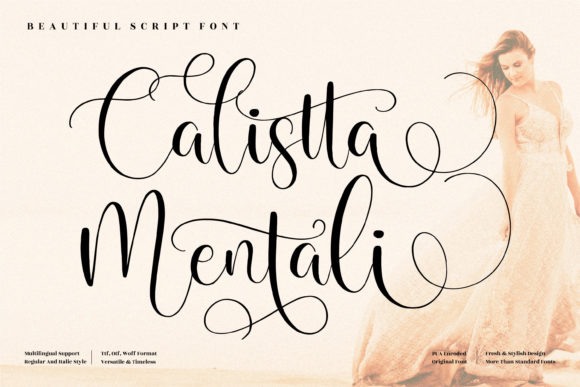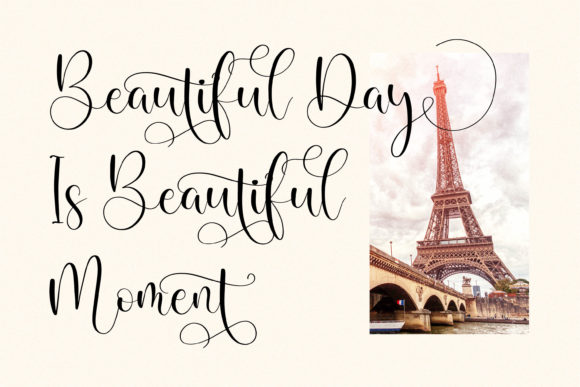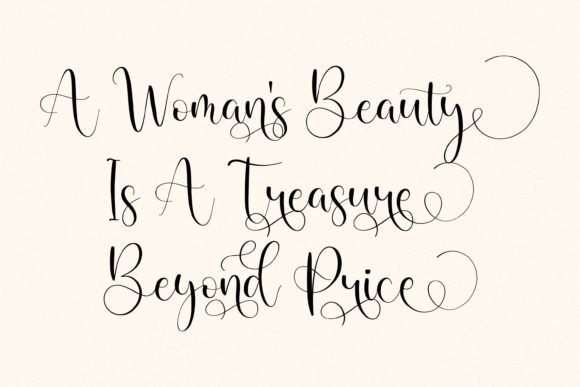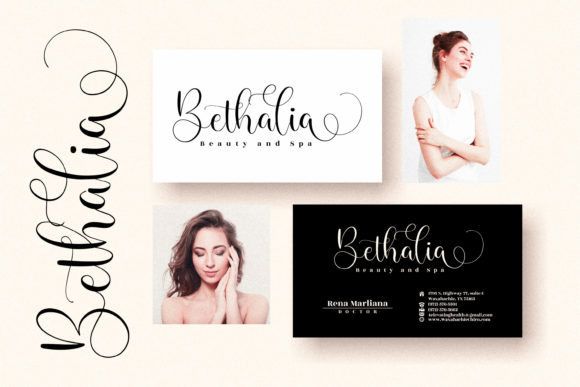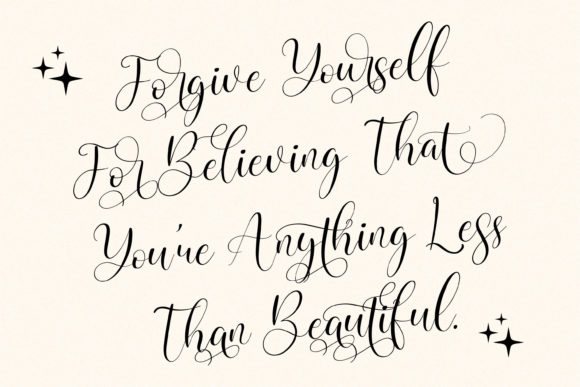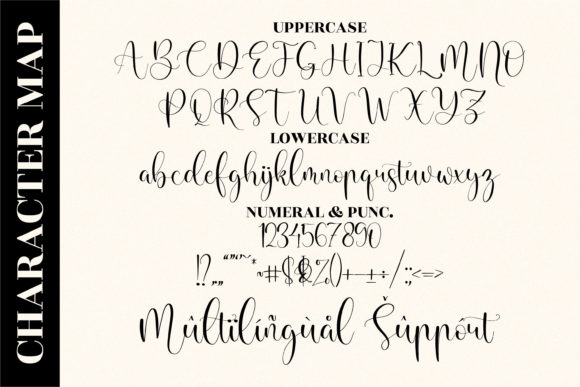
Calistta Mentali Font
About Calistta Mentali Font
Calistta Mentali is a beautiful, well balanced and stylish script font. It is defined by smooth curves and is perfect for fashion branding or editorial designs. Calistta Mentali is PUA encoded which means you can access all of the glyphs and swashes with ease!